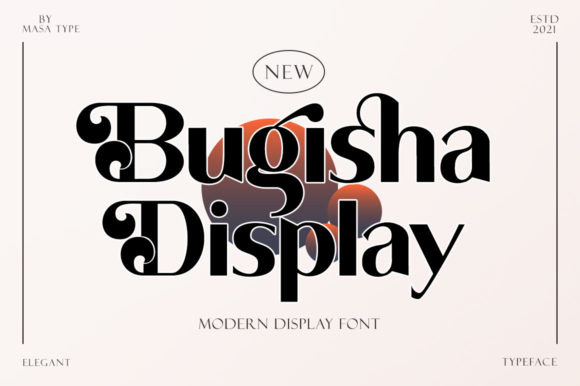
In a world demanding uniqueness and distinction, Bugisha Font emerges as an electrifying display typeface, exclusively designed to empower your business plan with an unforgettable visual identity. Its chunky retro style isn't just a design choice; it's a statement, a bold declaration that grabs attention and leaves an indelible mark on your audience.
With Bugisha Font as your visual ambassador, your business plan transforms into an immersive experience, a journey through carefully crafted words and captivating visuals. Its PUA encoding unlocks a treasure trove of glyphs and swashes, providing endless opportunities for creative expression. Unleash your imagination and let Bugisha's bold, chunky strokes paint a picture that speaks louder than words.
By choosing Bugisha Font, you're not simply selecting a font; you're making a strategic move, an investment in your business's visual legacy. Its striking appearance commands attention, separating your business plan from the mundane and propelling it into the realm of the extraordinary.
Bugisha Font is more than just a collection of letters and symbols; it's an arsenal of visual tools, empowering you to craft business proposals that resonate, presentations that captivate, and marketing materials that convert.
So, if you seek to leave a lasting impression, to communicate your business vision with clarity and impact, embrace Bugisha Font. Let its retro charm and unwavering boldness elevate your business plan to new heights of sophistication and distinction.